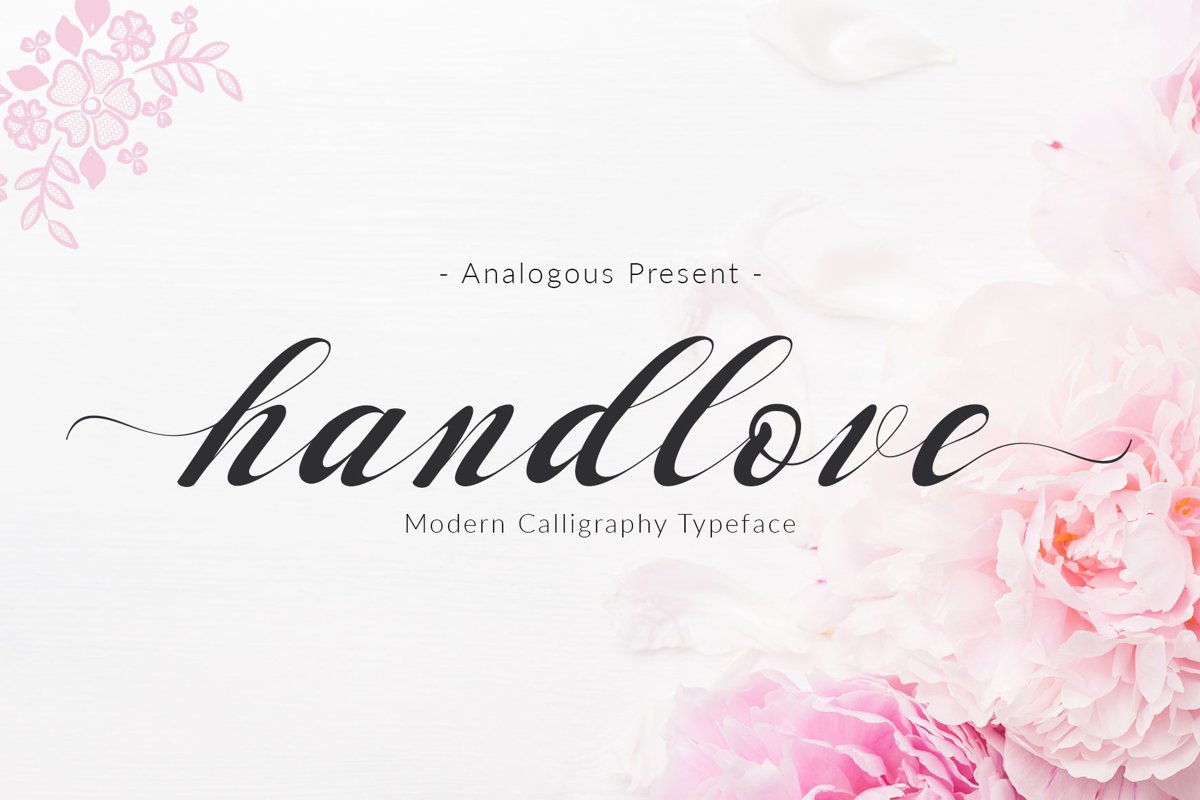
handlove script
handlove
a sweet calligraphy modern script style, decorative characters and a dancing baseline! So beautiful on invitation like greeting cards, branding materials, business cards, quotes, posters, and more..
handlove come with 382 glyphs. The alternative characters were divided into several Open Type features such as Swash, Stylistic Sets, Stylistic Alternates. The Open Type features can be accessed by using Open Type savvy programs such as Adobe Illustrator, Adobe InDesign, Adobe Photoshop Corel Draw X version, And Microsoft Word. And this Font has given PUA unicode (specially coded fonts). so that all the alternate characters can easily be accessed in full by a craftsman or designer.